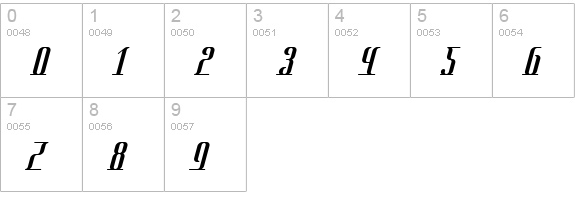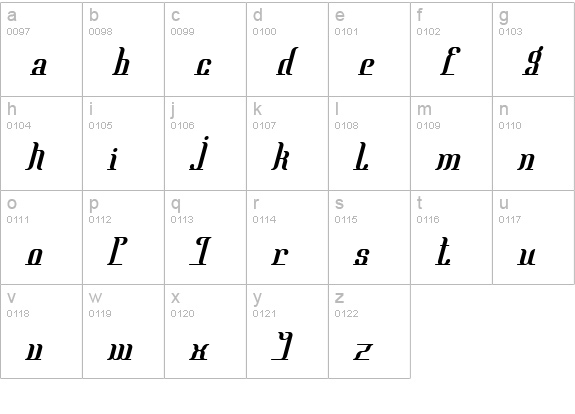
Mata Hari Parisienne Italic Font Details
Mata Hari Parisienne Italic is a distinctive, italic variant in the Mata typeface family \xE2\x80\x94 well suited to design and typography projects.
Introducing Mata Hari Parisienne Italic font - a captivating and elegant typeface that effortlessly transports you to the enchanting streets of Paris. With its fluid and graceful letterforms, Mata Hari Parisienne Italic exudes a sense of sophistication and timeless beauty. This exquisite font captures the essence of the Parisian spirit, embodying the charm and allure of the City of Lights. Its delicate slant and intricate curves add a touch of romance and refinement to any design, making it perfect for invitations, branding, editorial layouts, and more. Mata Hari Parisienne Italic is a font that truly sets itself apart with its unique blend of classic and contemporary elements. Its subtle italic angle adds a hint of movement and flair, while maintaining a sense of balance and legibility. Each letter is meticulously crafted, showcasing fine details and intricate strokes that create a sense of handcrafted artistry. One of the most remarkable aspects of Mata Hari Parisienne Italic font is that it is freely available to download at FontsMarket.com. This means that you can easily access this stunning typeface and incorporate it into your projects without any cost. Whether you are a professional designer or simply someone who appreciates the beauty of typography, Mata Hari Parisienne Italic is a font that you cannot afford to miss. Experience the allure of Paris with Mata Hari Parisienne Italic font - the perfect choice for adding a touch of elegance and sophistication to your designs. Its timeless appeal and effortless beauty will captivate your audience and leave a lasting impression. So why wait? Download Mata Hari Parisienne Italic font today and embark on a typographic journey that is both visually stunning and free of charge.